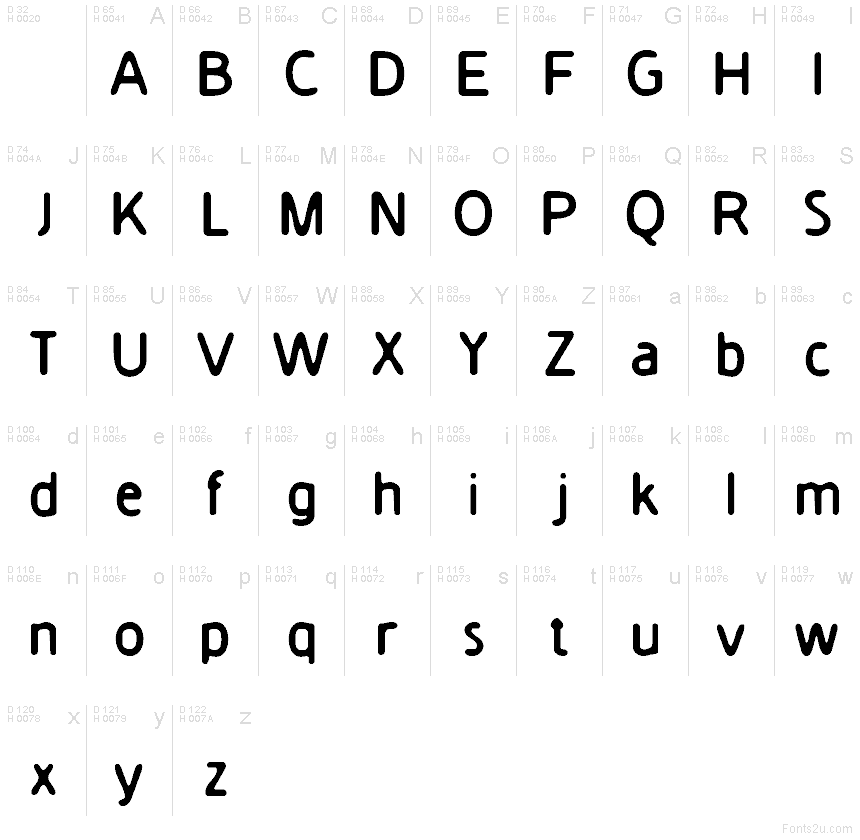
CSLoretoDrawn-Regular Demo
CS Loreto Drawn font by Craft Supply Co. is a free hand-drawn display font. Built within the CS Loreto family, this cut leans into soft, inky strokes with rounded corners and a gentle wobble that feels sketched rather than engineered. Its rhythm is steady enough to read at a glance, yet lively enough to add warmth—those pillowy terminals and organic curves give headlines a friendly, human pulse.
Using CS Loreto Drawn, you get headlines that hug the page on café menus, artisanal packaging, wellness branding, event posters, social graphics, and playful badges. The spacing breathes, so copy doesn’t crowd; it shines big at 24pt and up. Simple pairing tip: set subheads in CS Loreto for a tidy contrast with this free font’s hand-done character.
CS Loreto Drawn Demo